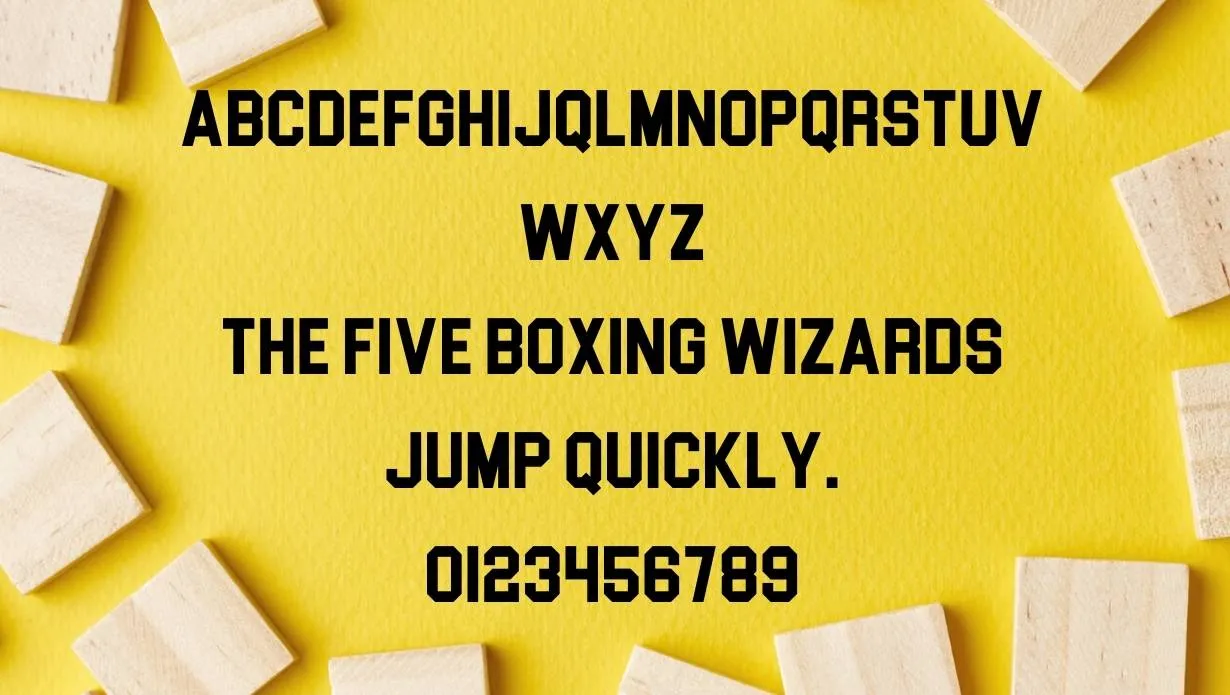
Welcome, We are going to introduce the best Sans serif typeface. This Font style is known as the name of the Blockletter Font. This beautiful typeface has gained popularity in a very short period.
It was designed by a well-known graphic designer named is Sharkshock. This typeface has an awesome and attractive appearance look. A lot of teachers and customers request that assignments or forms be written in Blackletters style because this typeface makes it easy to understand.
Blockletter Font Family